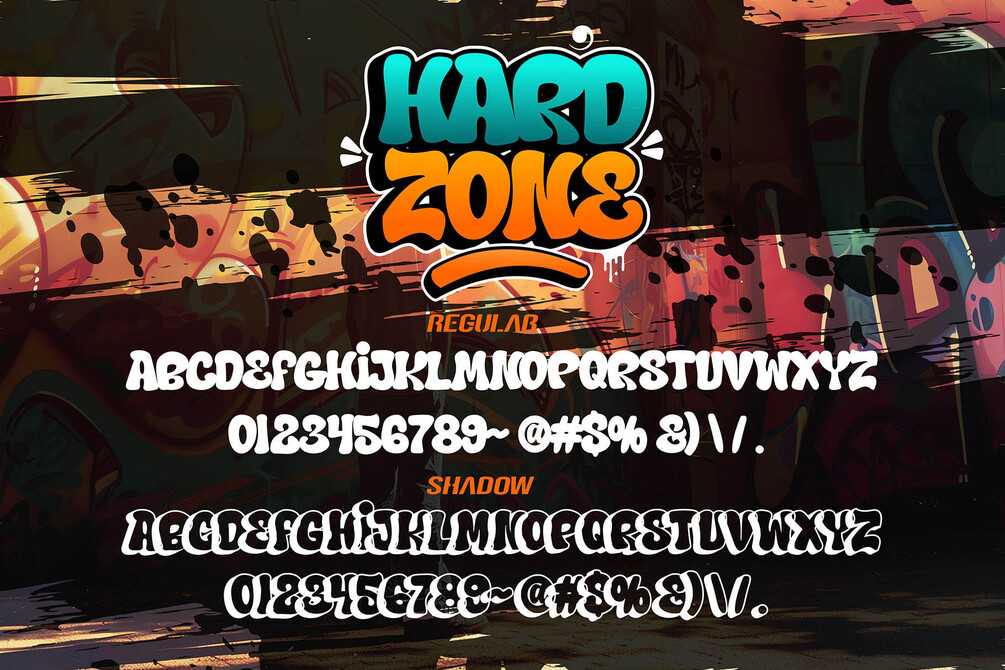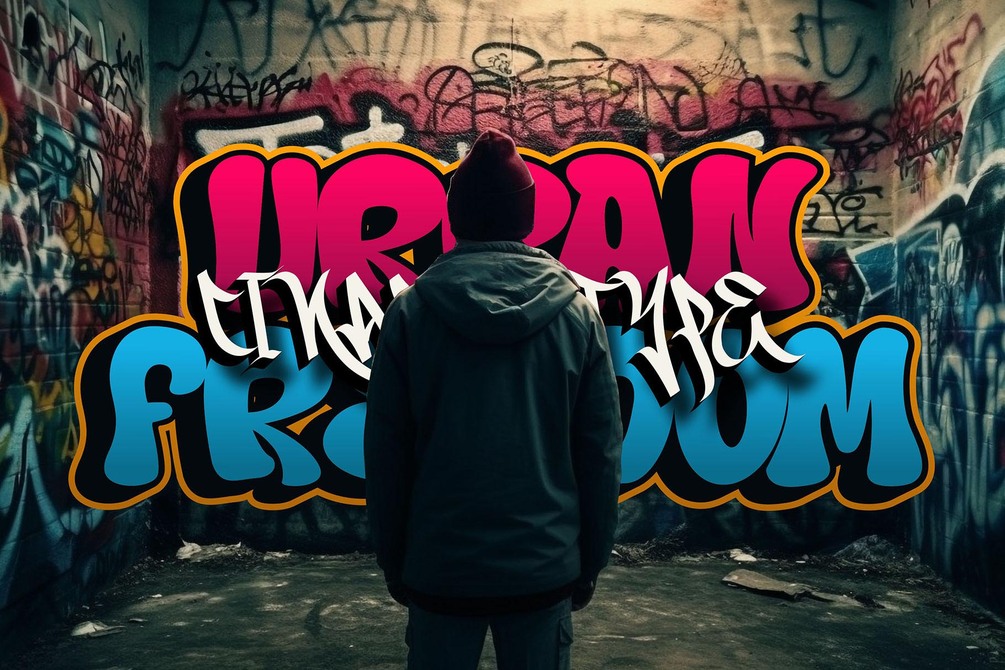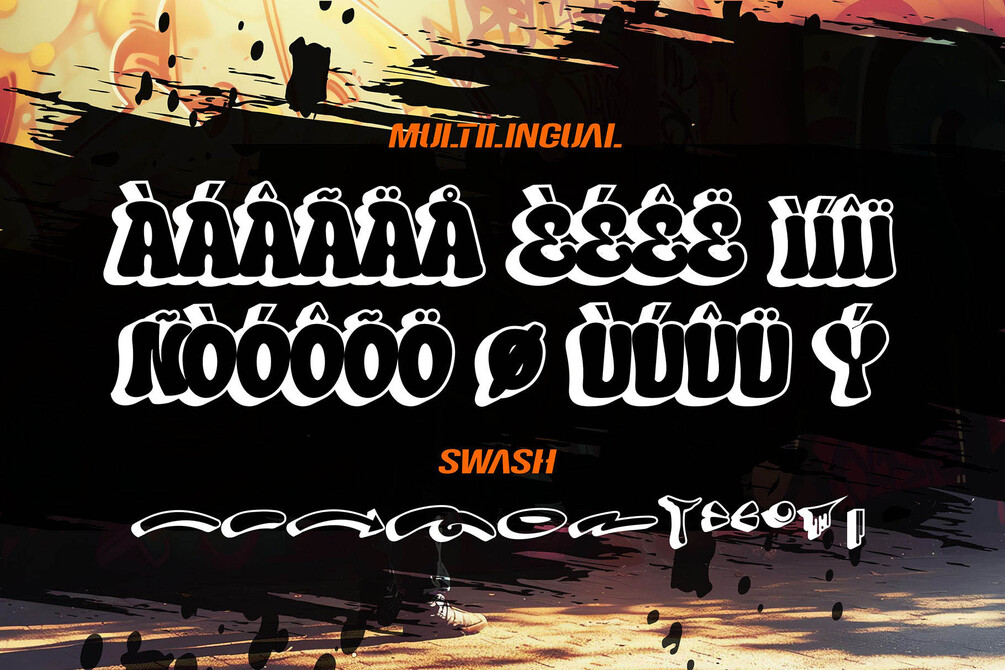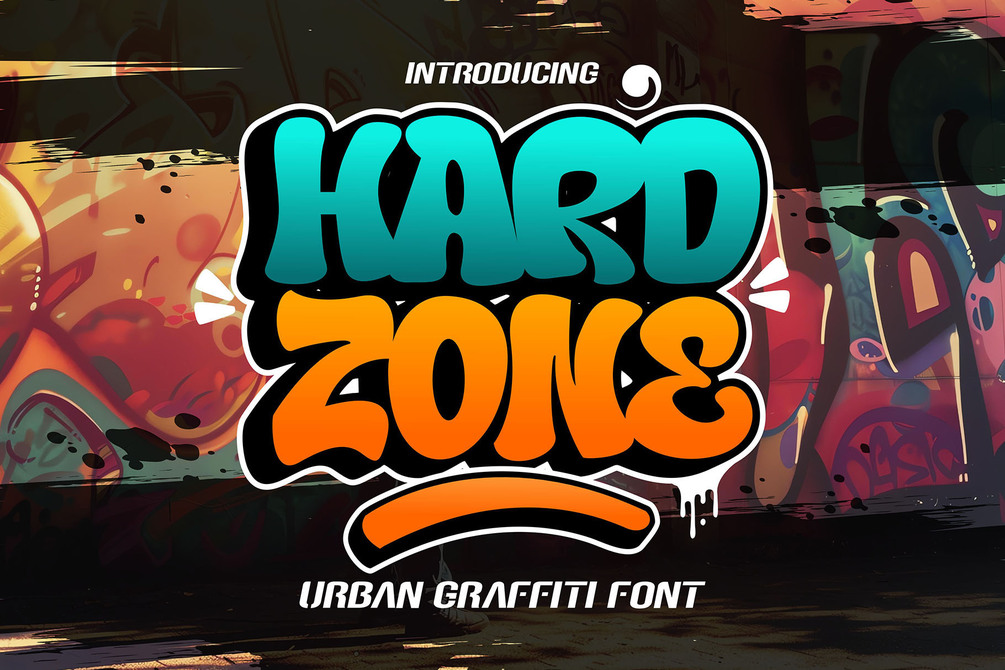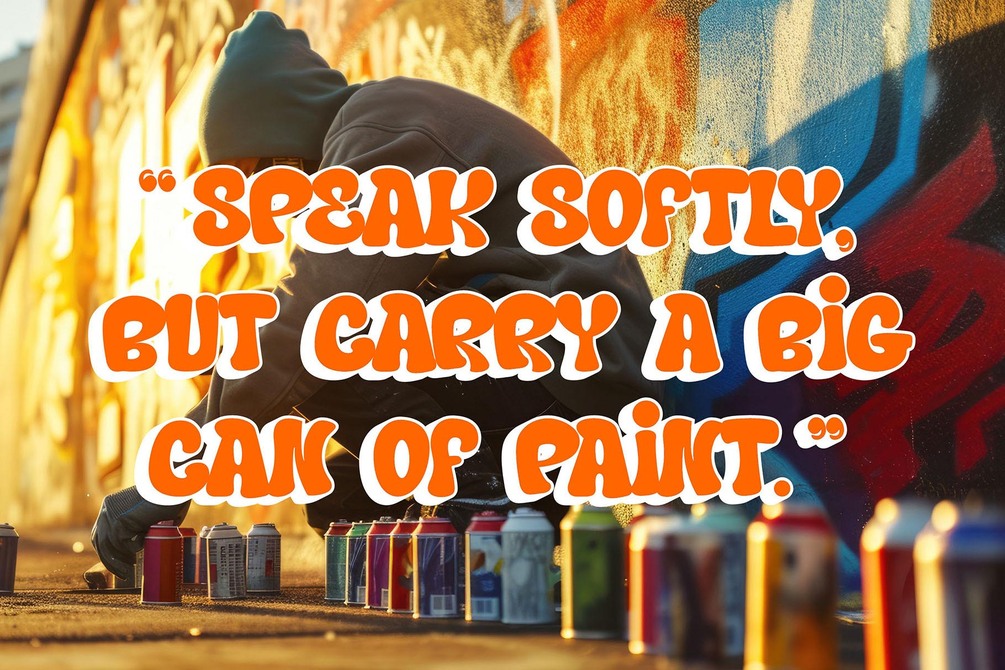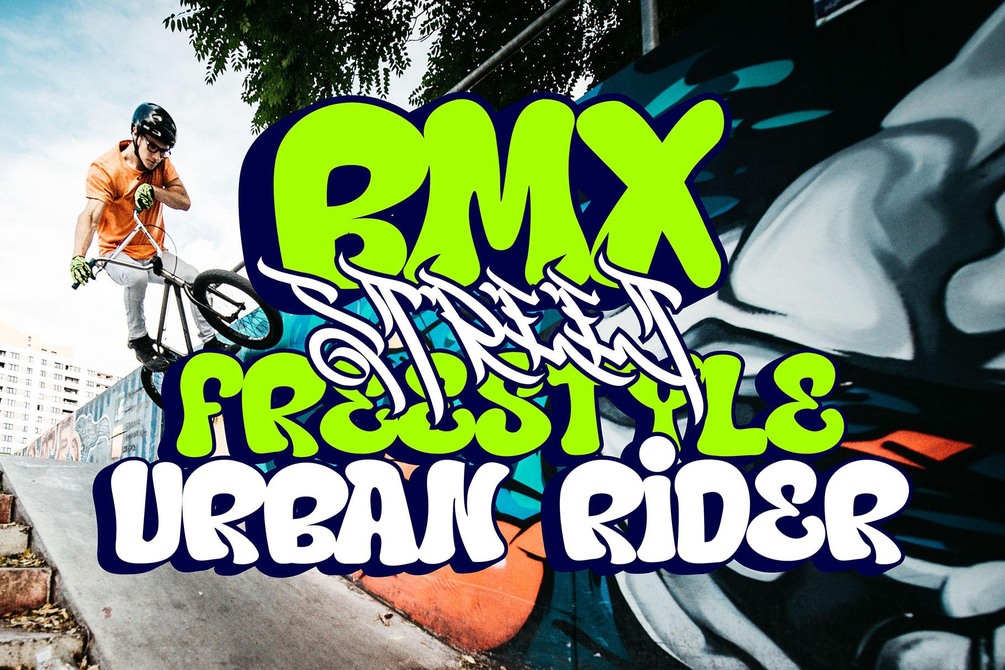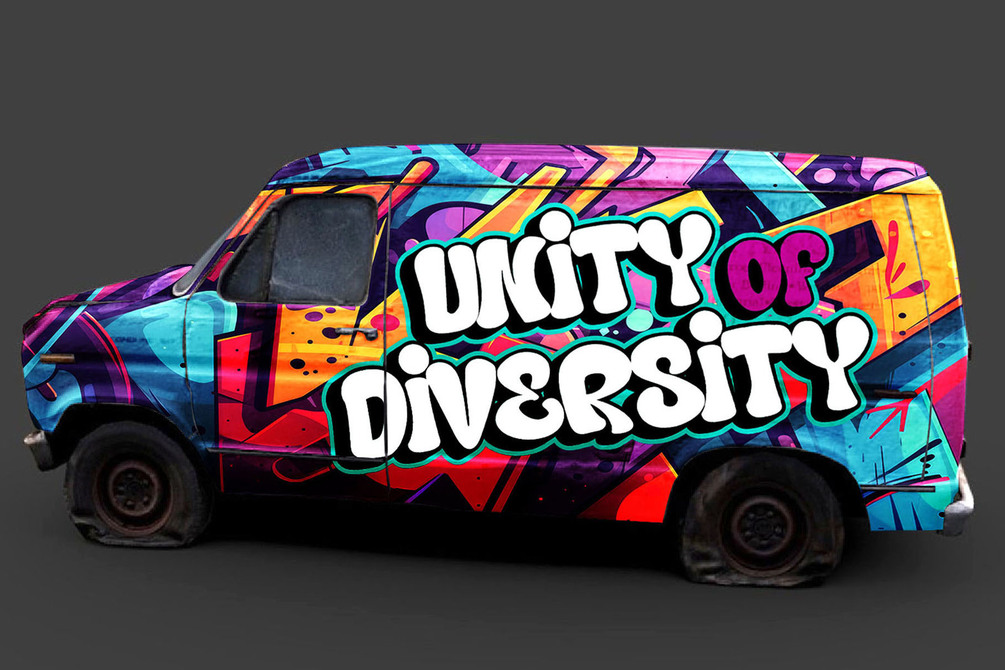
Hard Zone | Shadowed Graffiti Display Font | Instant Download for canva & procreate font
Hard Zone is a 3D layered graffiti font featuring regular letters and swashes, with shadows included on each character. This font brings a dynamic and robust look to your designs, making it perfect for street-themed projects, bold headlines, and eye-catching advertisements. The intricate layering and shadow effects add depth and a three-dimensional appearance, enhancing the visual impact and making your text stand out. Hard Zone's versatility and edgy style make it an excellent choice for any project that demands a powerful and urban aesthetic.
• Inluded Stylistic Alternates
• Versatile for branding, headline, or printing product